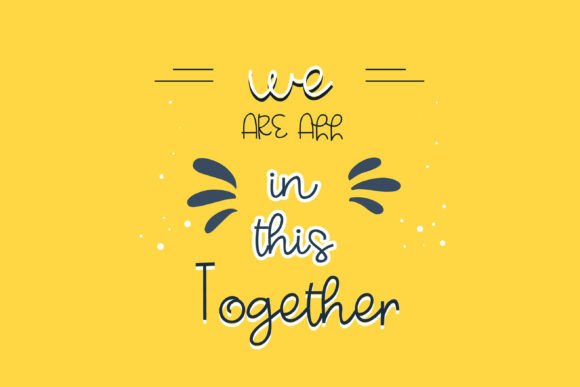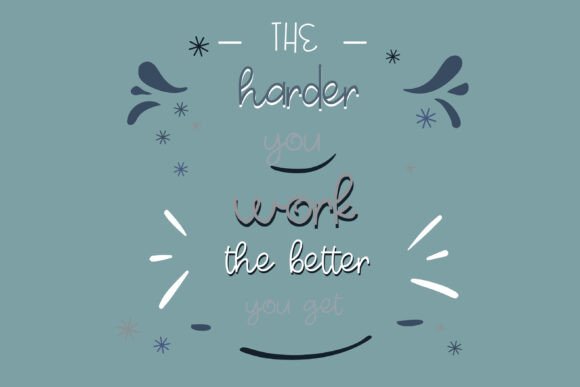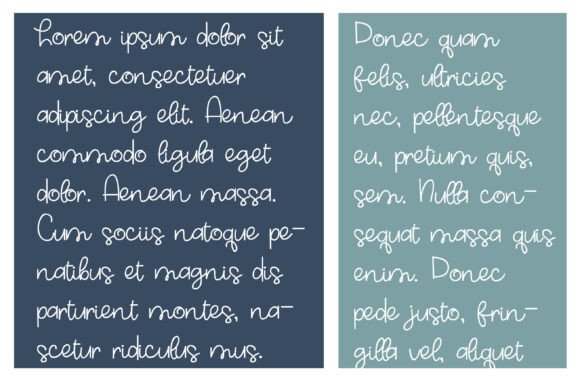
Lickerbug Font Font
Lickerbug is a handcrafted font that is designed to look like it was written by hand. It is often used for invitations, greeting cards, and other items. Handwritten fonts can be either formal or informal, and they can be used for a variety of purposes.